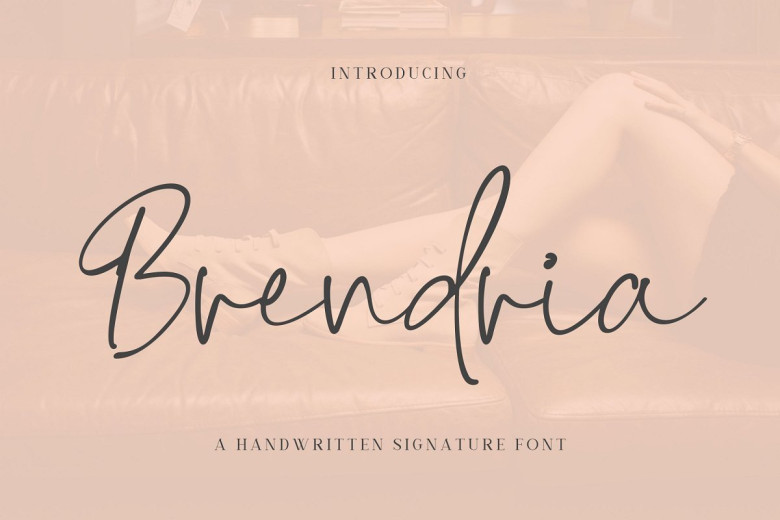
Brendria Handwritten Signature Font
Brendria Handwritten Signature Font. It has a elegant, classy look and beauty. It’s a great font for fashion, apparel projects, signature, album cover, logo, branding, magazine, social media, & advertisements, but also works great for other projects.